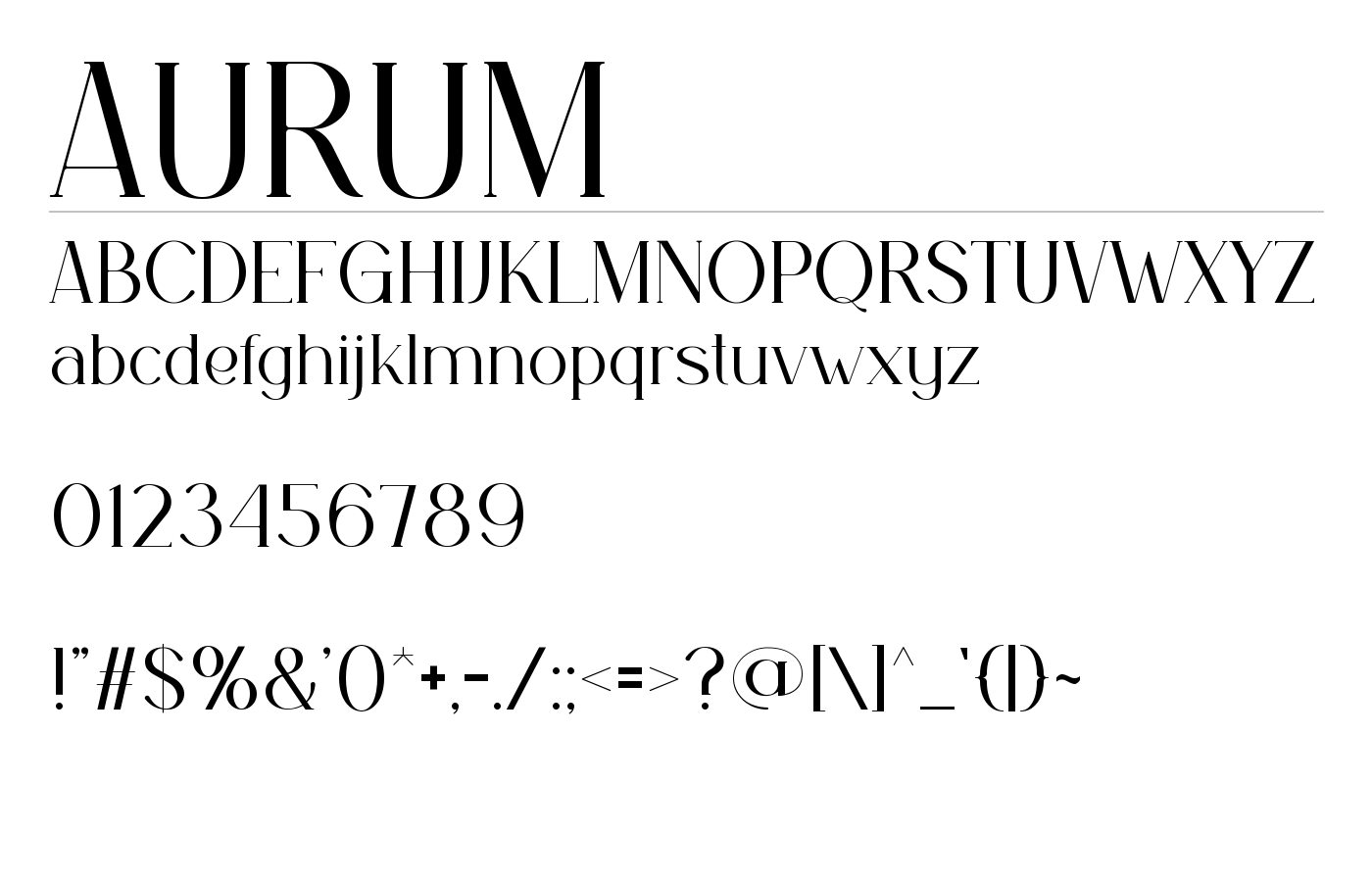
AURUM is a refined serif font that combines elegance with modern sophistication, featuring high contrast strokes and delicate, bracketed serifs that add a graceful touch. Its tall, narrow letterforms and subtle curves make it ideal for luxury branding, editorial headlines, and stylish packaging where a polished, upscale look is desired. This font’s timeless yet contemporary feel works beautifully for fashion, beauty, and high-end product design, lending an air of exclusivity and class.
AURUM Font
About AURUM Font
| Designer | TOKOPRESS TEAM |